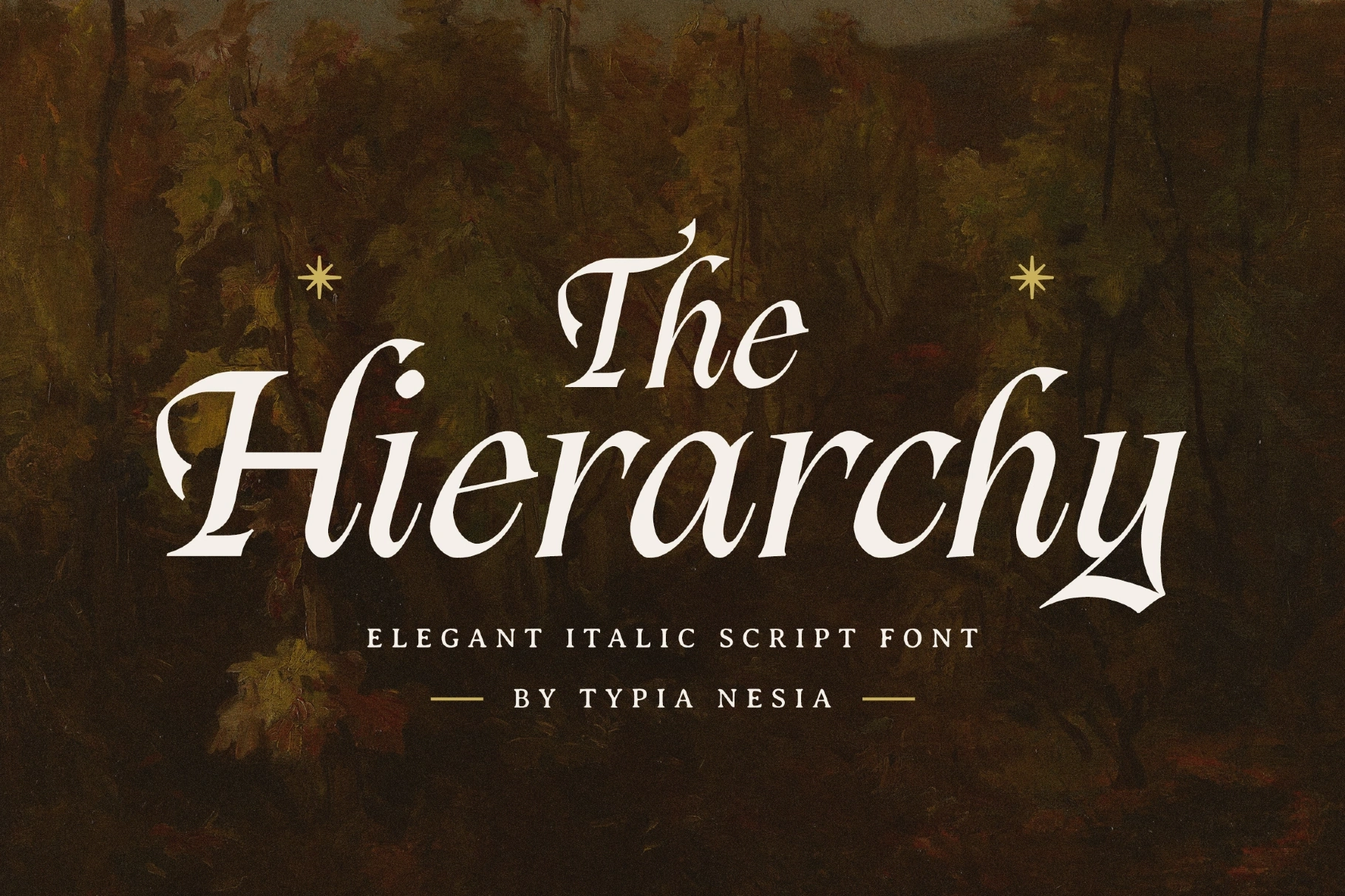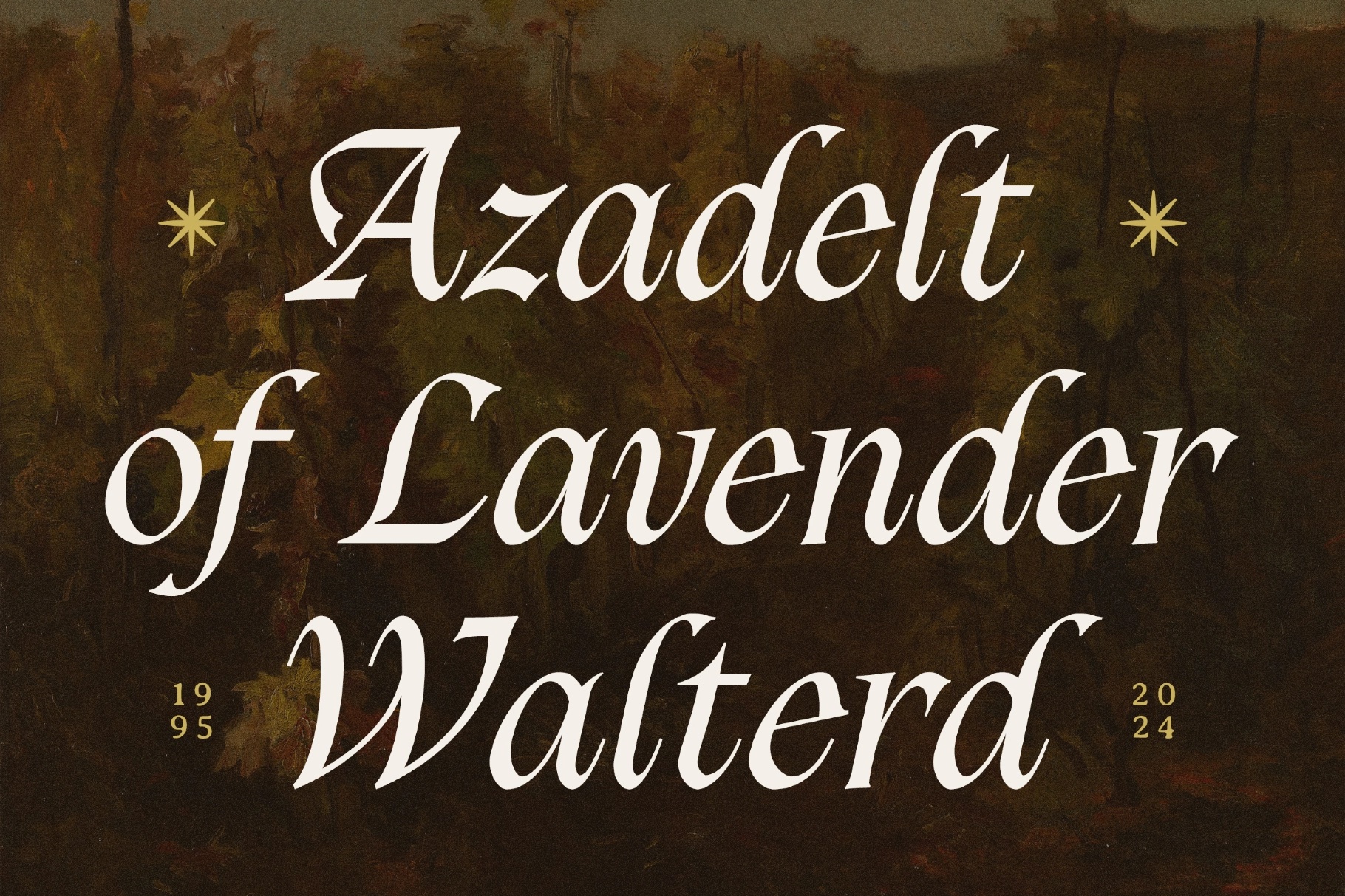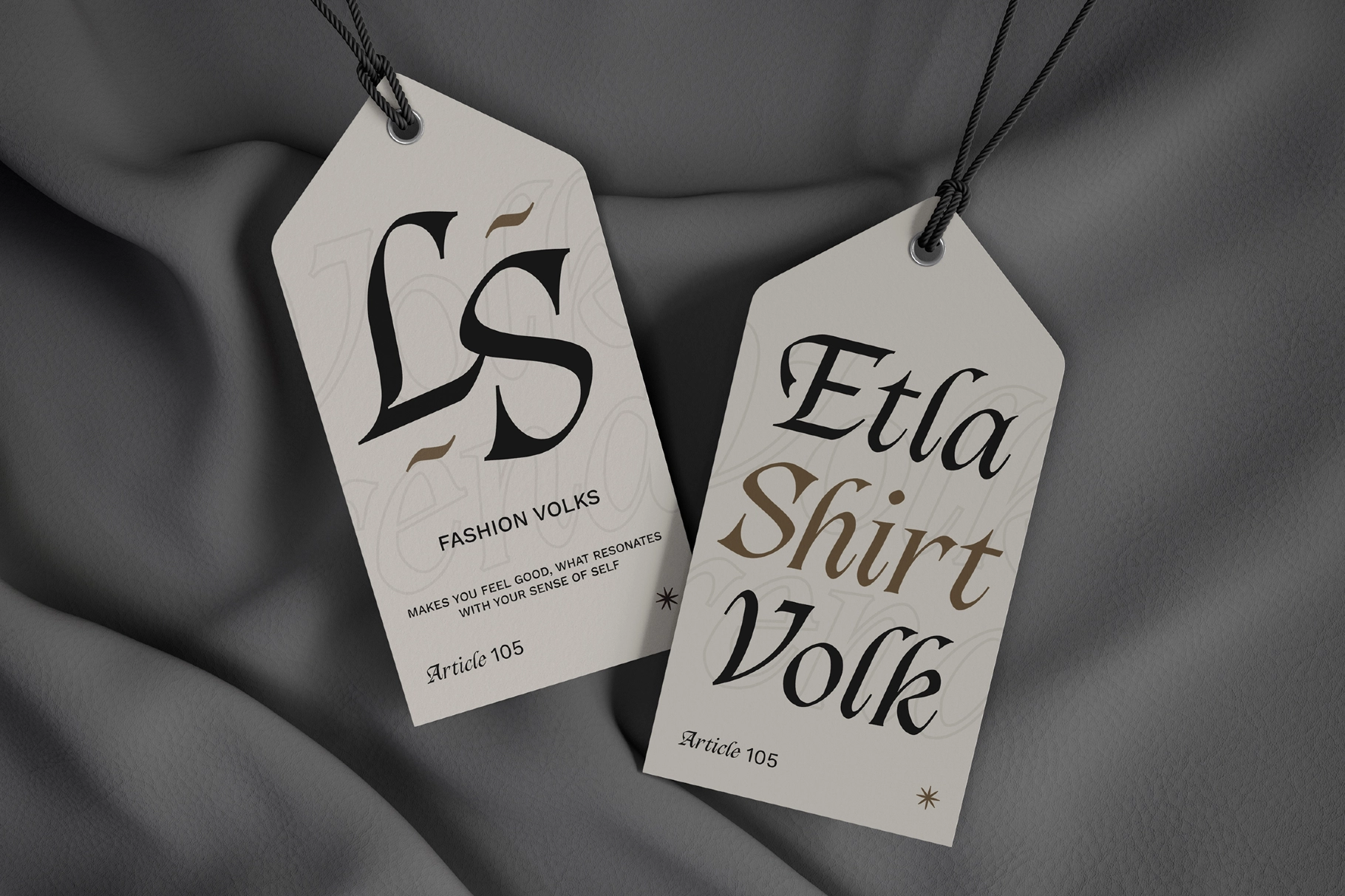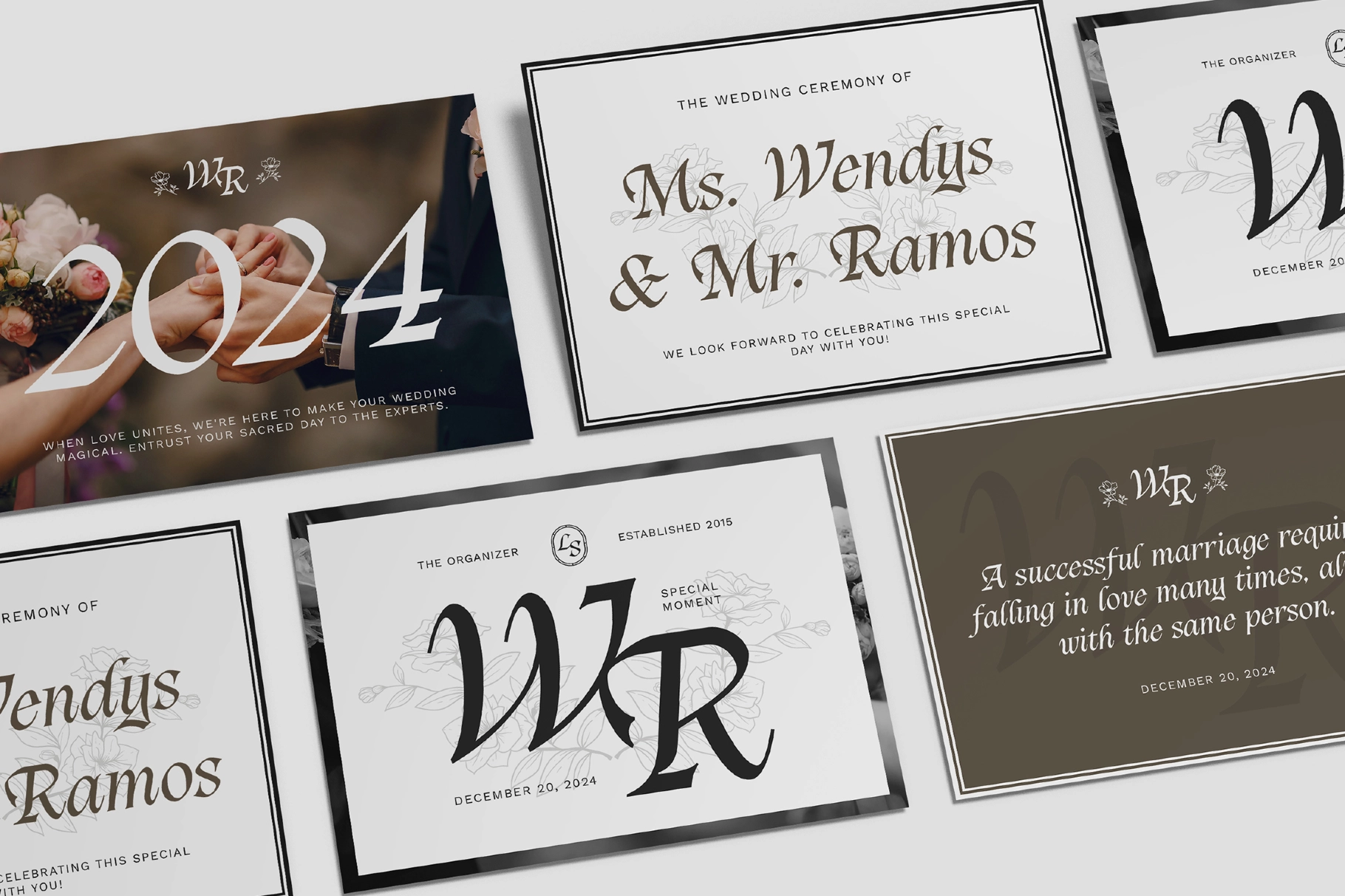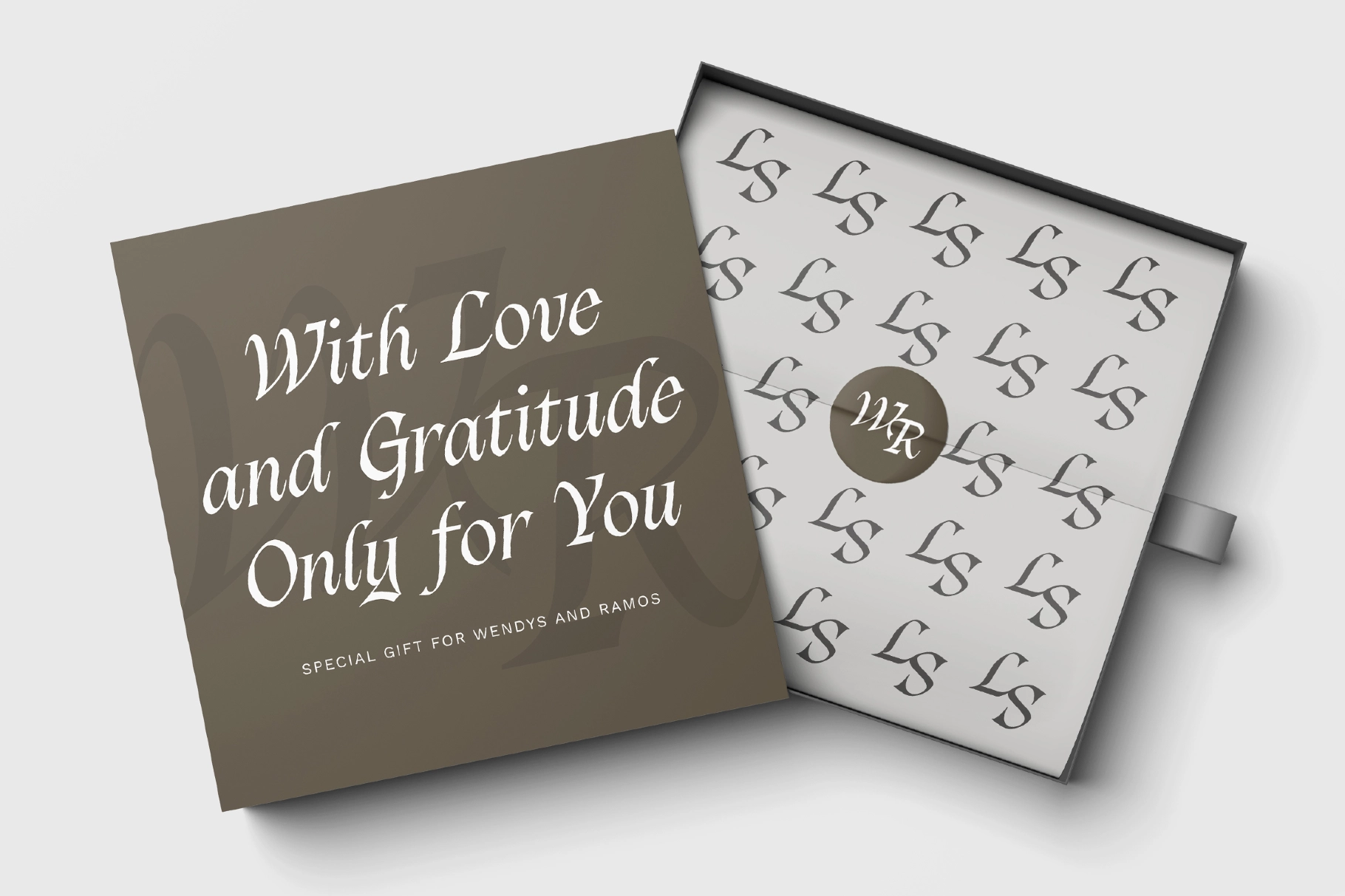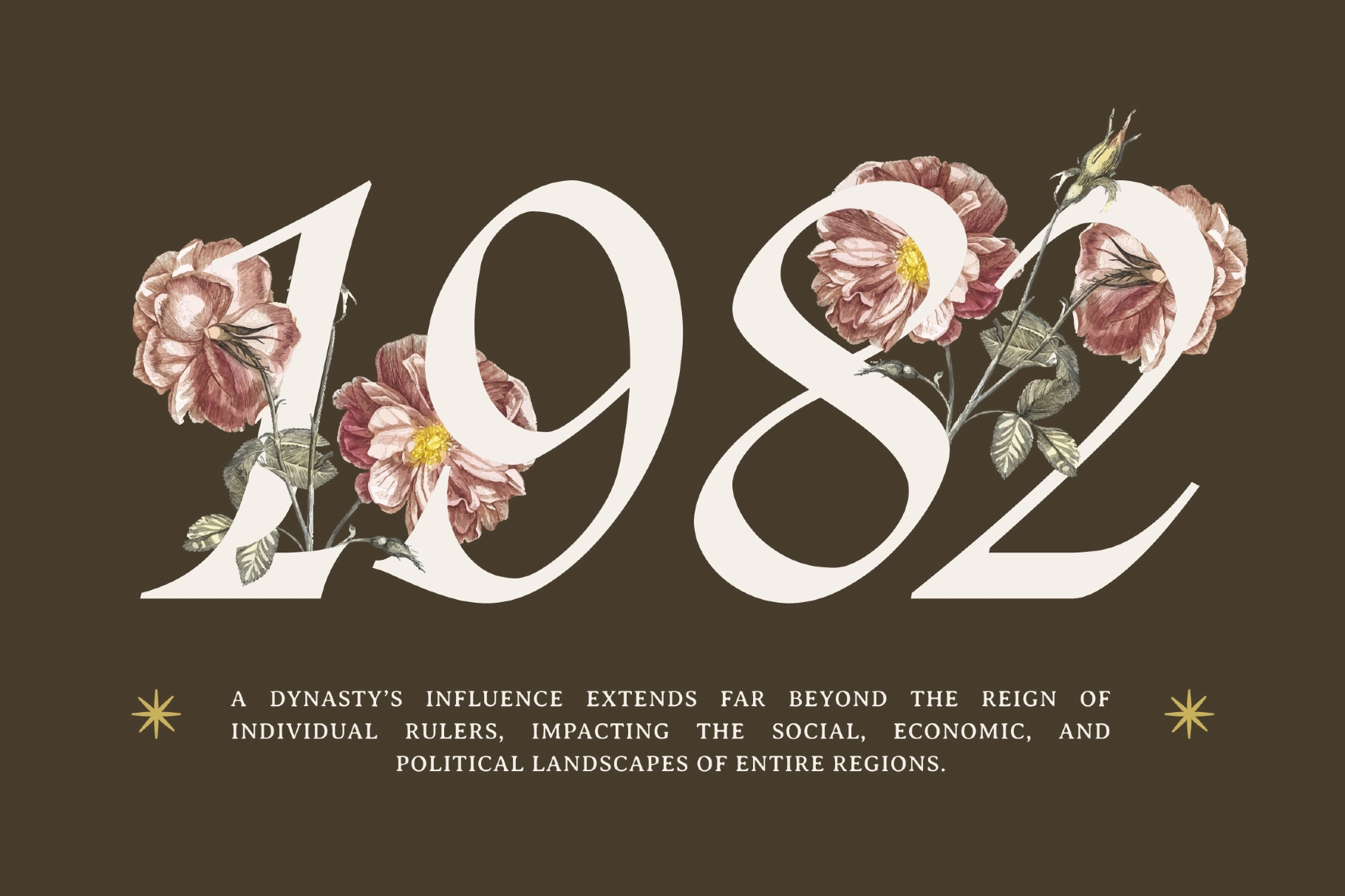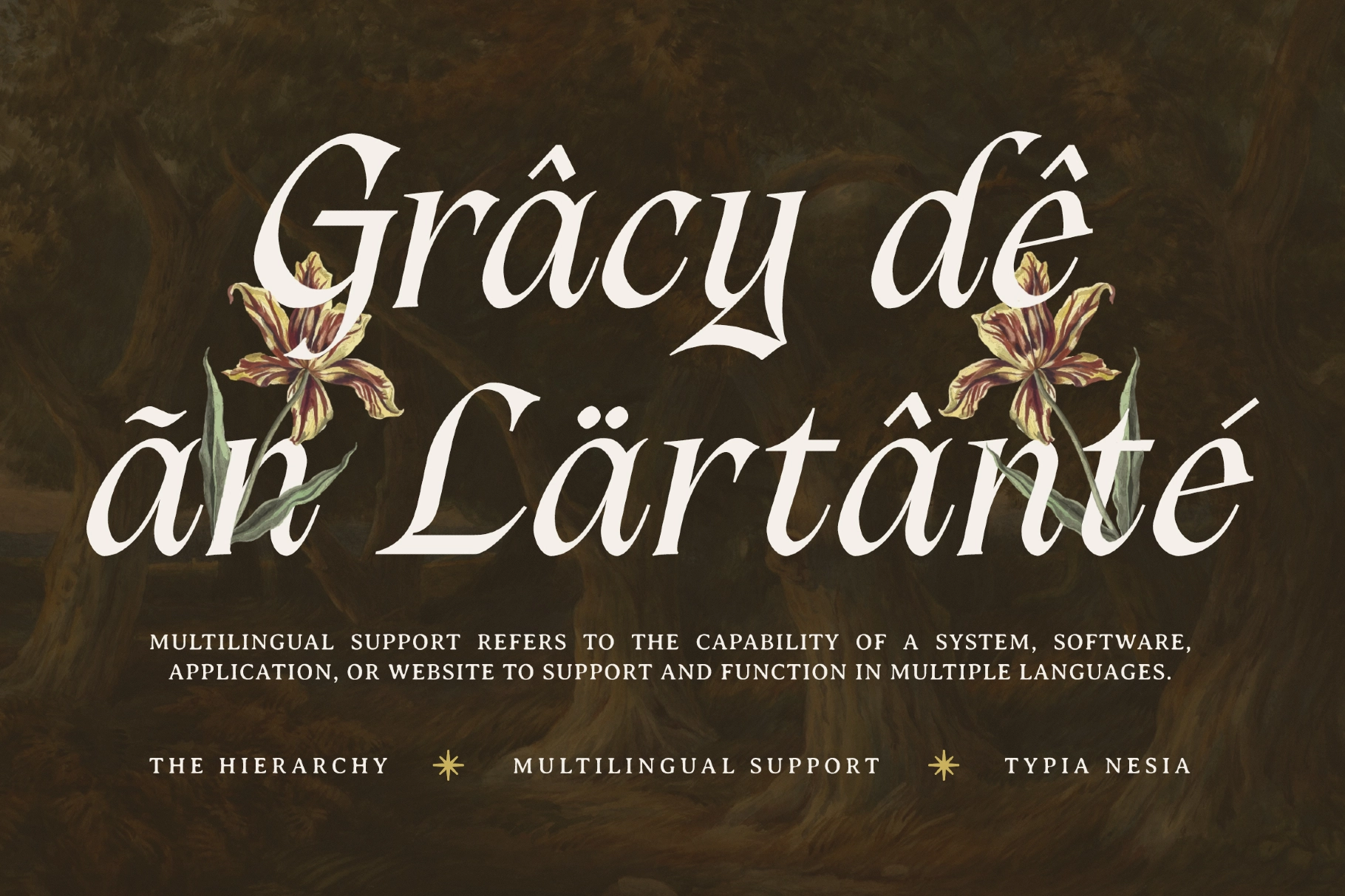
The Hierarchy - Luxury Italic Calligraphy
The Hierarchy is an Elegant Beauty Italic Script Font that exudes royal and charm. With its graceful, flowing lines and meticulously crafted letterforms, this font brings a touch of luxury to any design. Perfectly balanced between classic elegance and modern flair, The Hierarchy is a versatile script that enhances the beauty of every project, Such as wedding invitations, beauty and fashion branding, elegant logos, upscale packaging, social media graphics, greeting Cards, book covers and titles, magazine and editorial design, website design, and any more projects that require a refined and luxurious touch and italic script style.
Designed for creatives who appreciate the finer details, The Hierarchy is perfect for professional designers looking to add a sophisticated, hand-lettered touch to their projects. Its elegant curves and beautiful italics make it a must-have font for high-end design work.